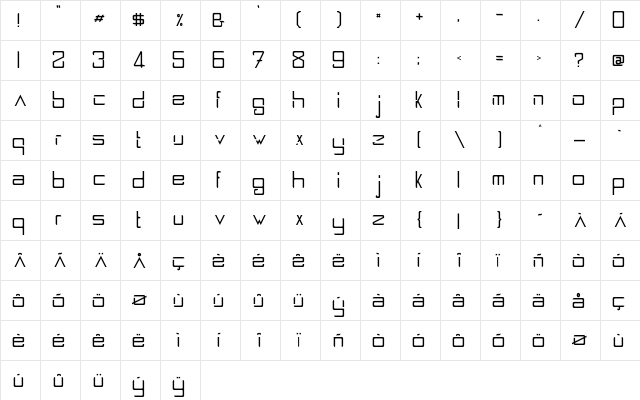
Spaceship2100 Regular
| Designer | rikyozone |
Design Context for Spaceship2100 Typeface
Spaceship2100 is a composed and adaptable typeface that performs quietly and consistently across a wide range of design contexts.